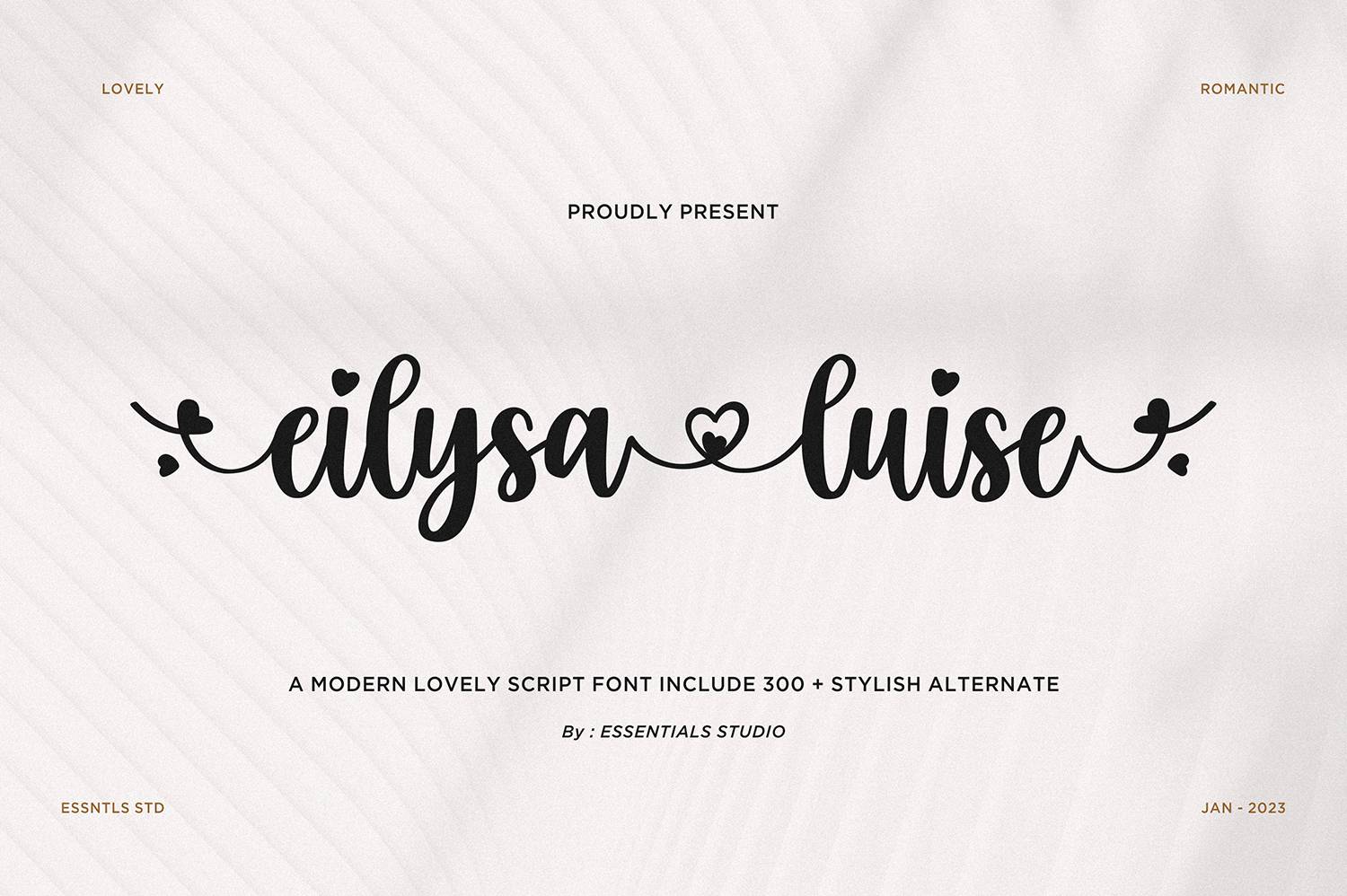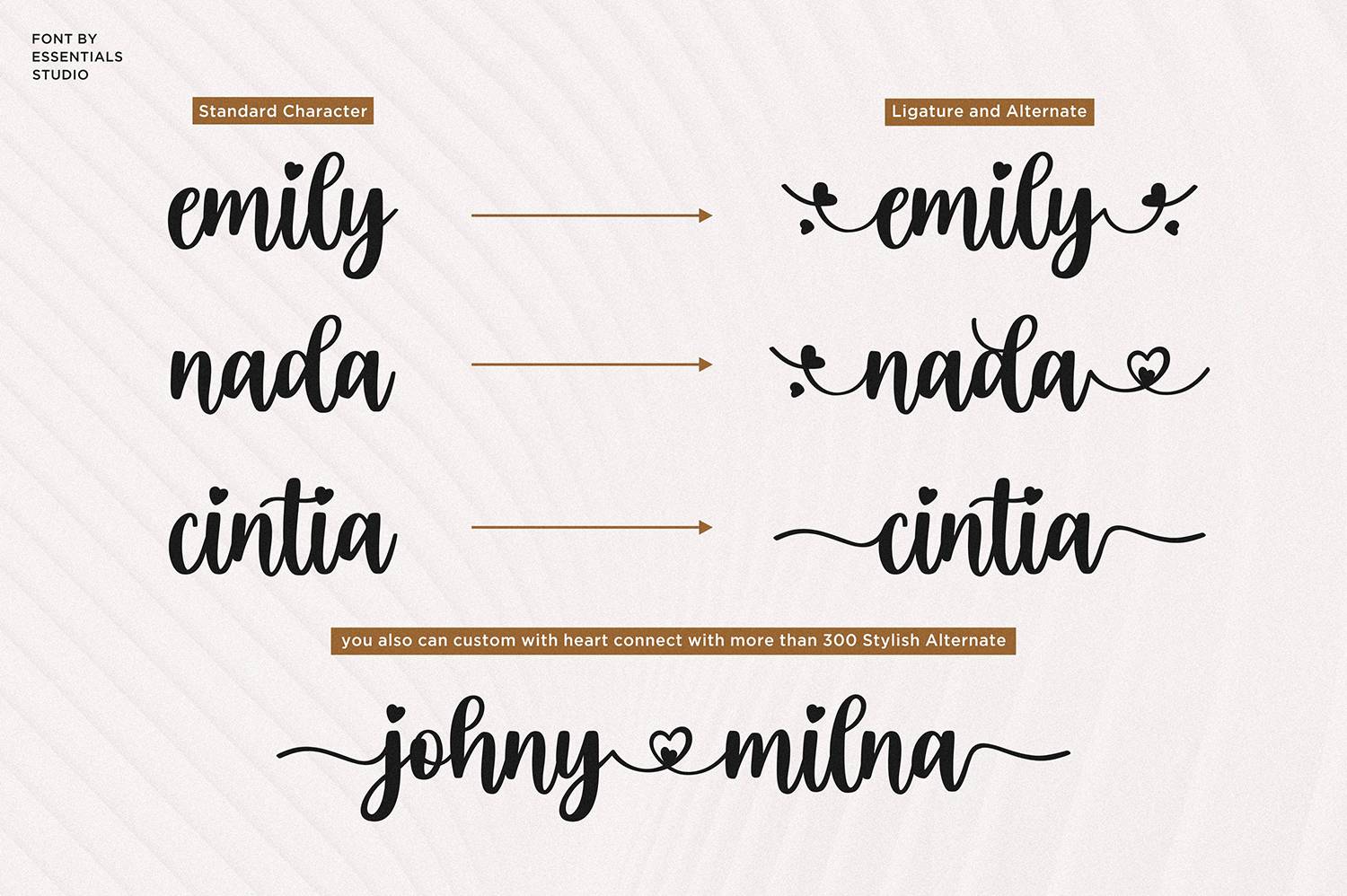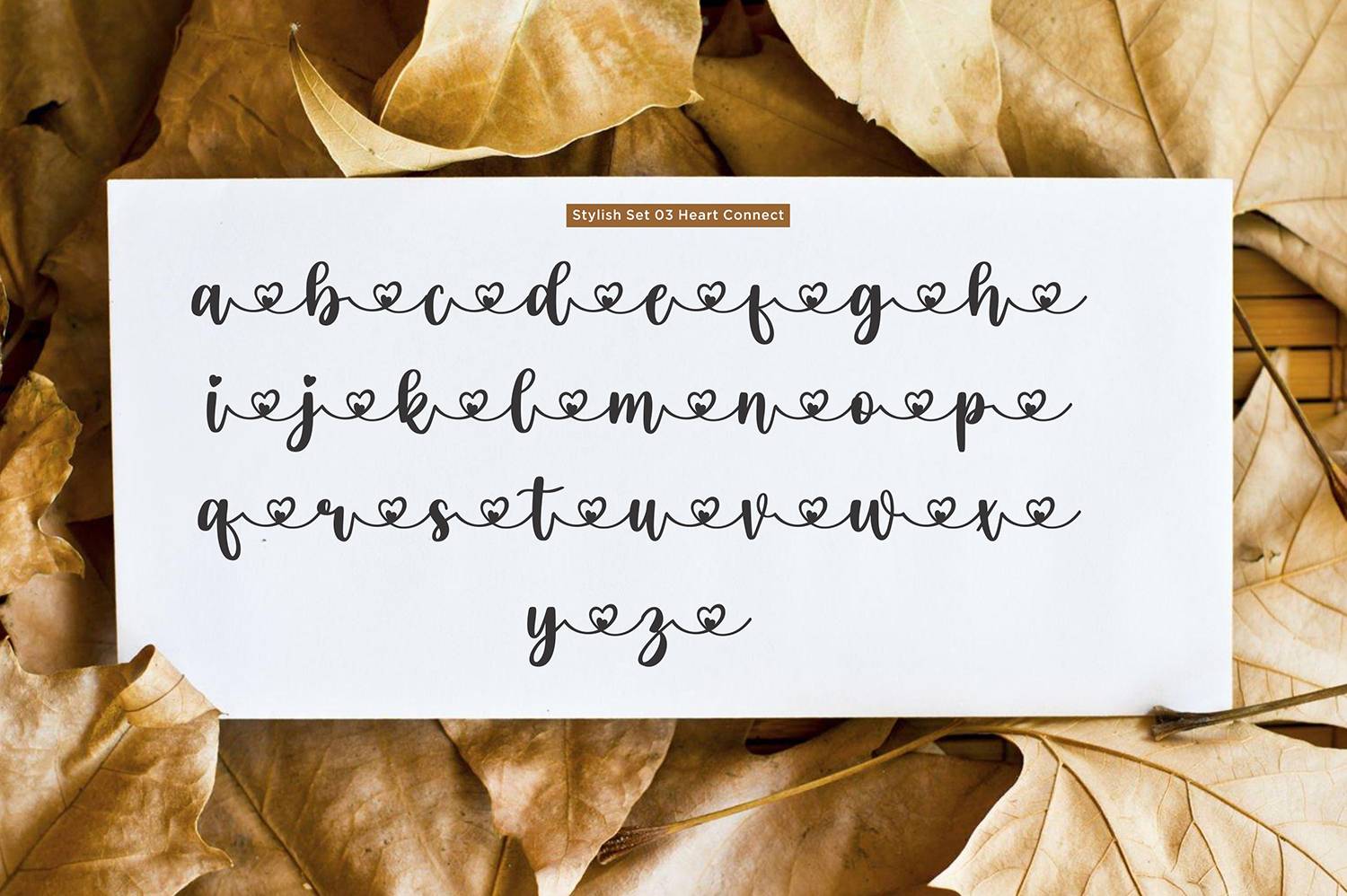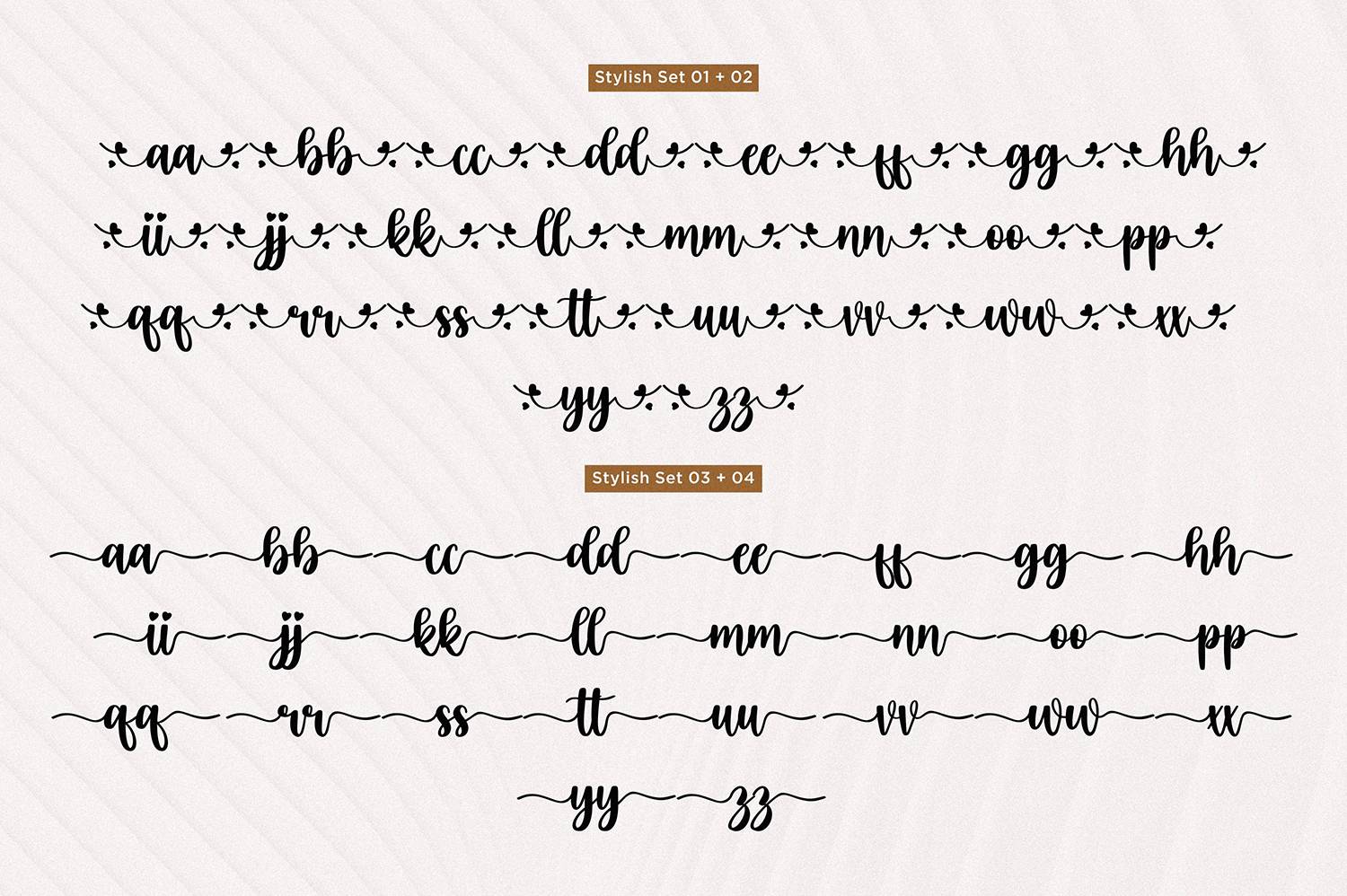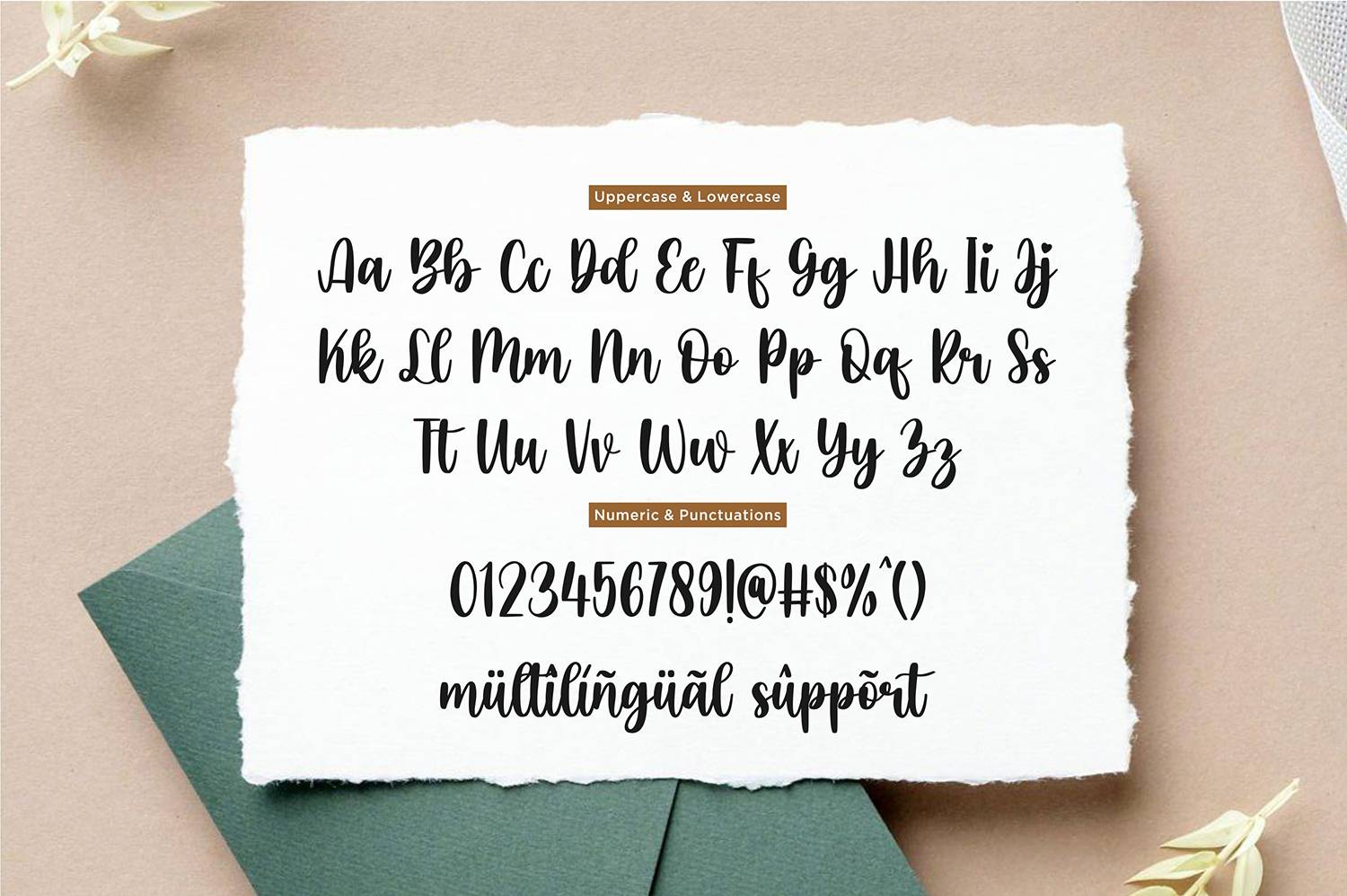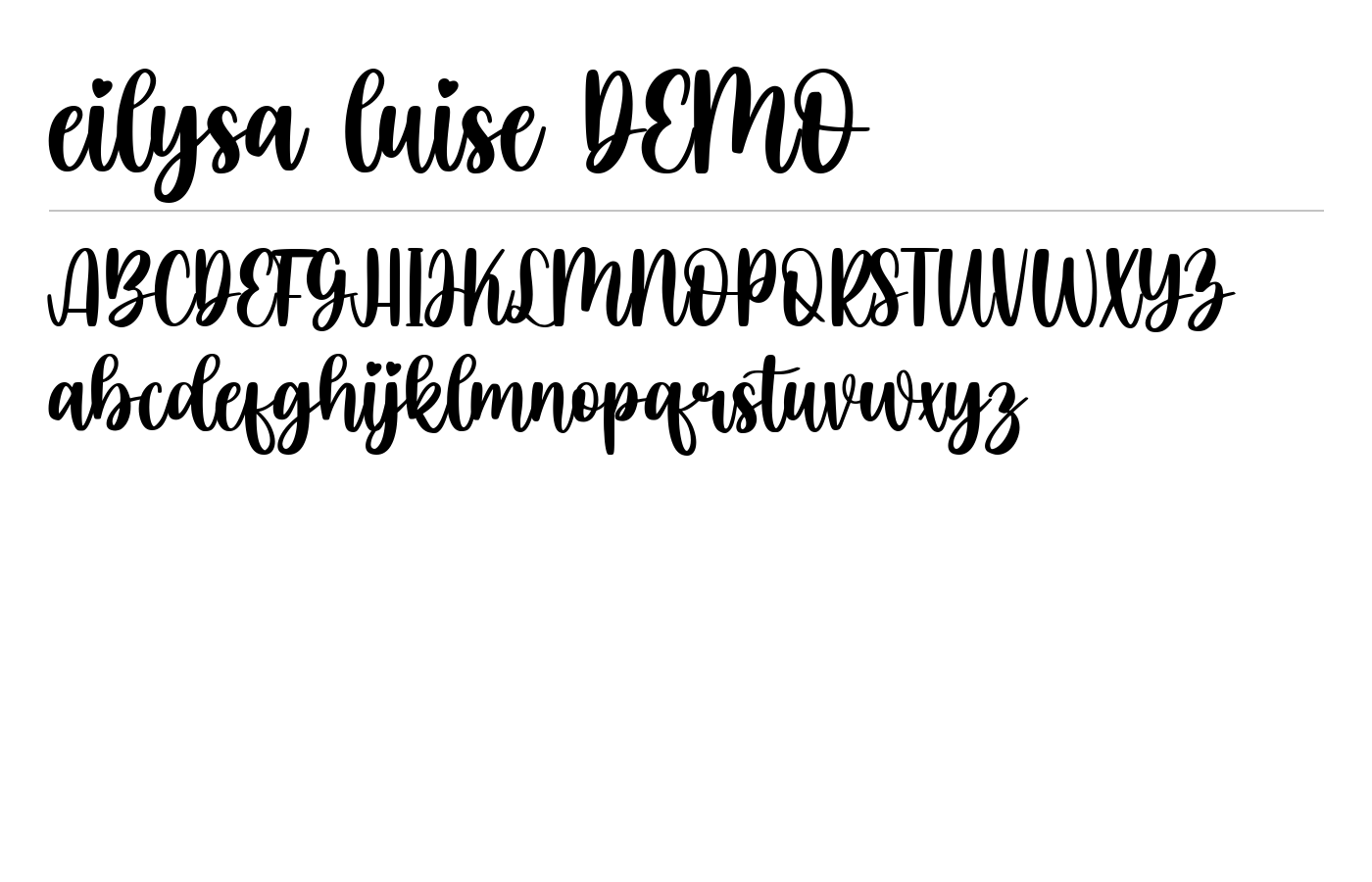
Eilysa Luise is a playful and elegant script font with smooth, rounded strokes and a handwritten feel. Its lively letterforms, featuring unique details like heart-shaped dots on the "i," make it ideal for creative projects, invitations, branding, and any design that aims to convey warmth and charm. This font works well in both headlines and decorative text, adding a friendly, stylish touch.
Eilysa Luise Font
About Eilysa Luise Font